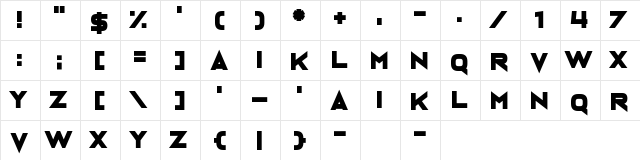
Neuterous Regular
| Designer | Allison James |
Design Context for Neuterous Typeface
Neuterous offers clean, dependable letterforms without strong stylistic allegiance, making it a practical choice for designers who need flexibility.